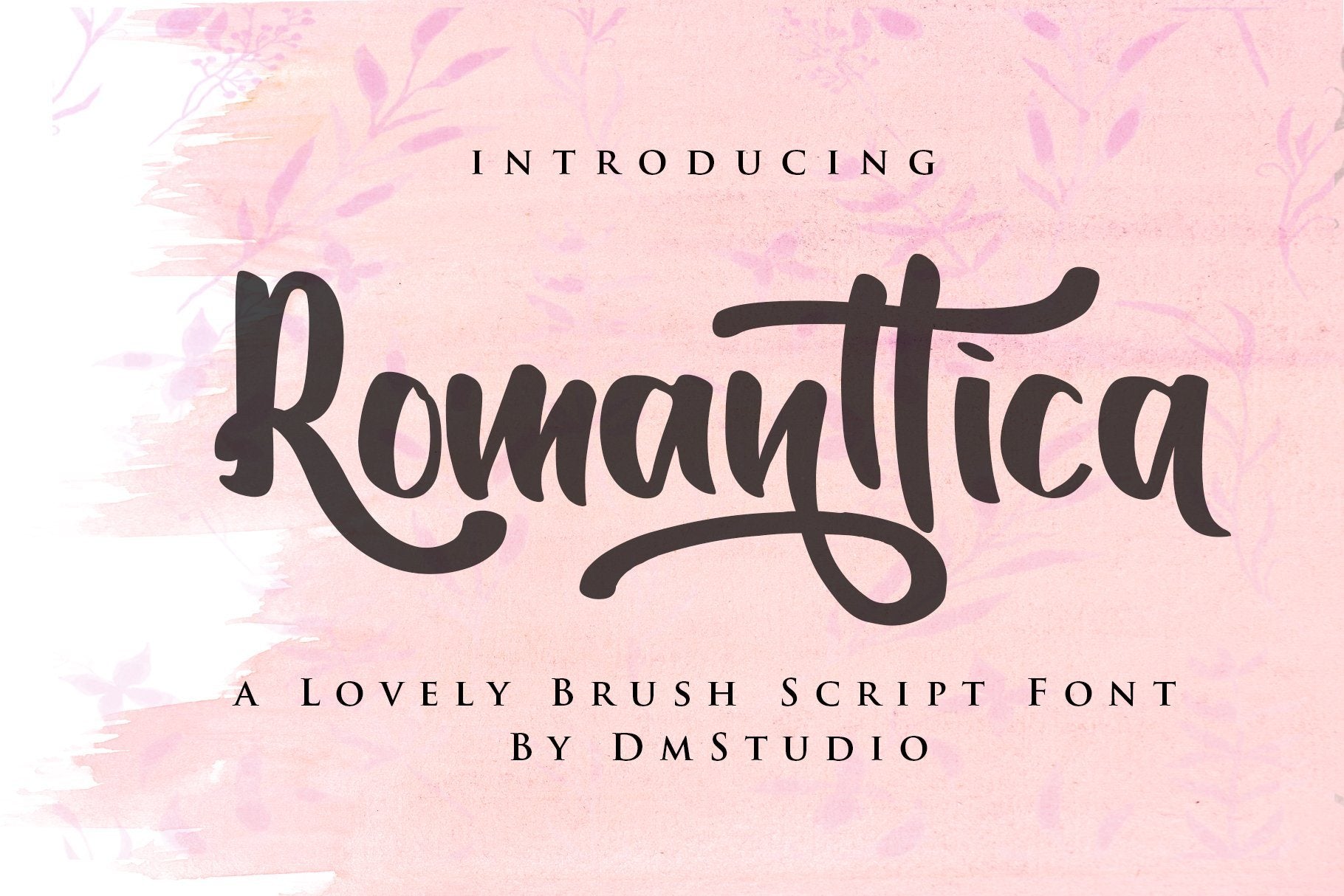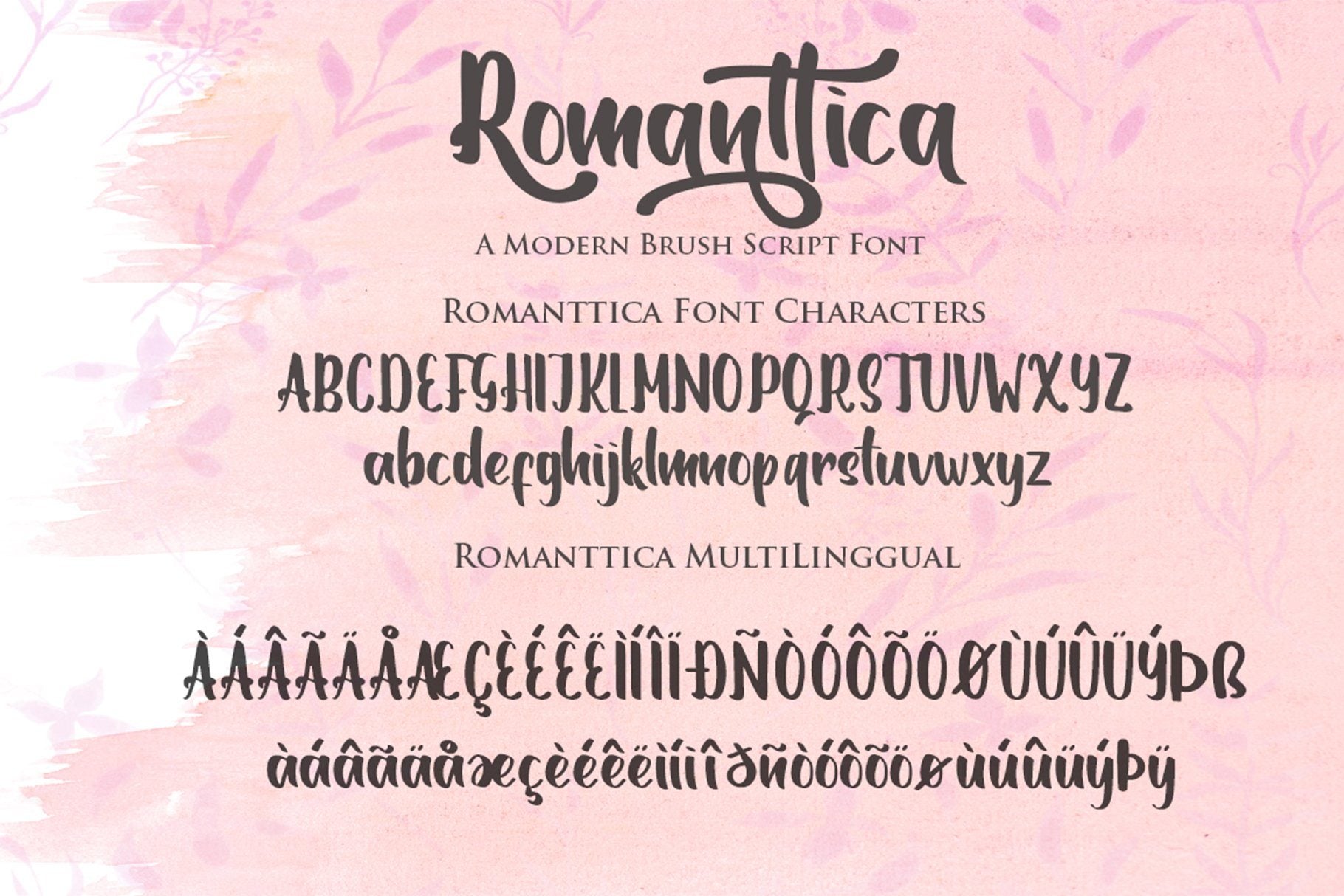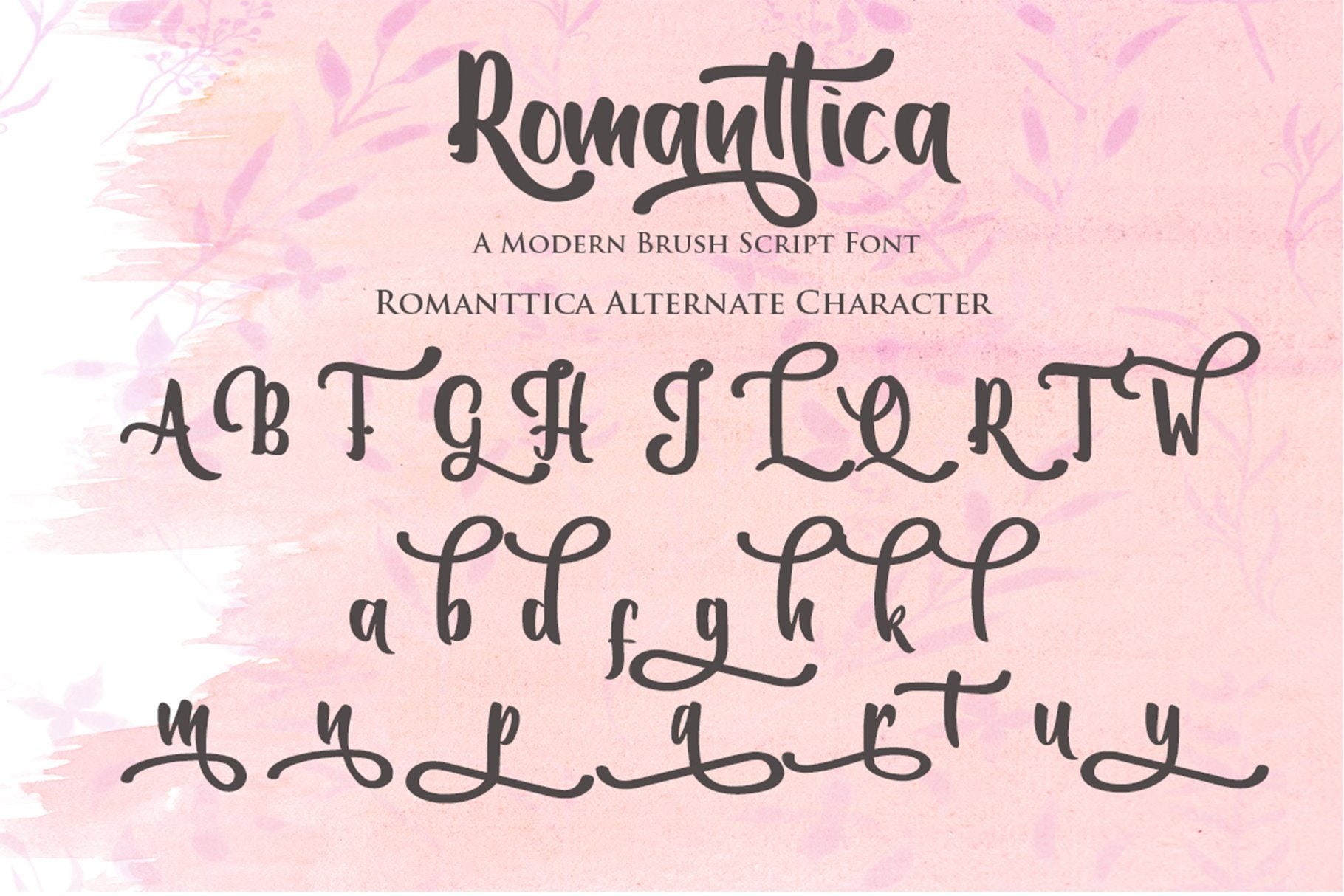
About Romanttica – Modern Script Brush Font
Romanttica , is a modern, beauty handwritten brush font. The nodes are reduces gently so you’ll get the clean and smooth in every character. This font will gives you a simple and beauty touch for many projects such as invitation, cards, gifts, branding, logo and other. Also it has many alternate glyphs so you can choose beside the simple characters or give them a little swashes to give a decorative touch for your designs. Romanttica Features : – Standard Characters ( A-Z , a-z, 0-9) – Multilingual Characters ( ÀÁÂÃÄÅÆÇÈÉÊËÌÍÎÏÐÑÒÓÔÕÖØÙÚÛÜÝÞß àáâãäåæçèéêëìíïîðñòóôõöøùúûüýþÿ ) – Punctuations and Symbols – Alternatives Characters – Custom Ligatures Romanttica File included : – Romanttica OTF – Romanttica TTF – Romanttica WOFF Thanks for your purchase and feel free to send me a message for any questions or advice 🙂